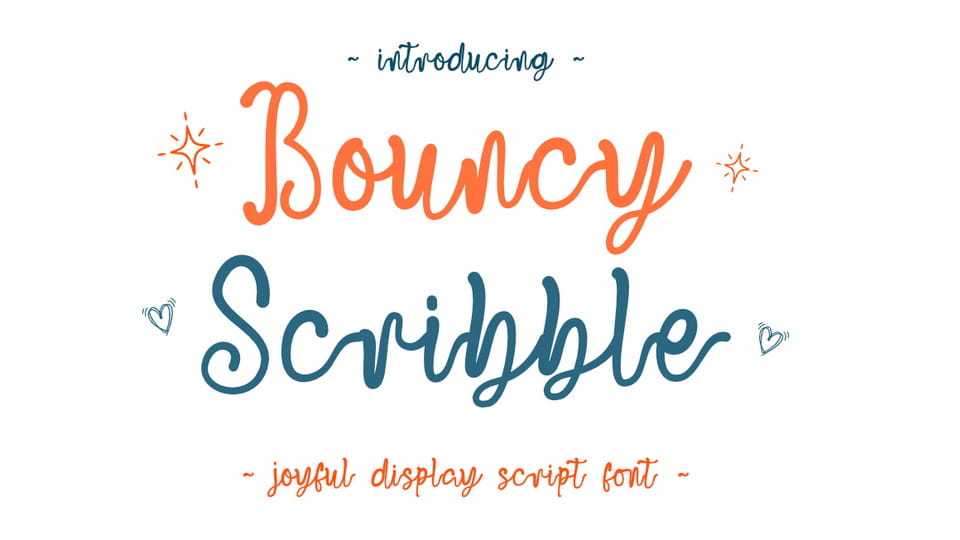
Download Bouncy Scribble font, a delightful handwritten script typeface that feels both organic and modern. Designed with a bouncy baseline and consistent, fluid strokes.